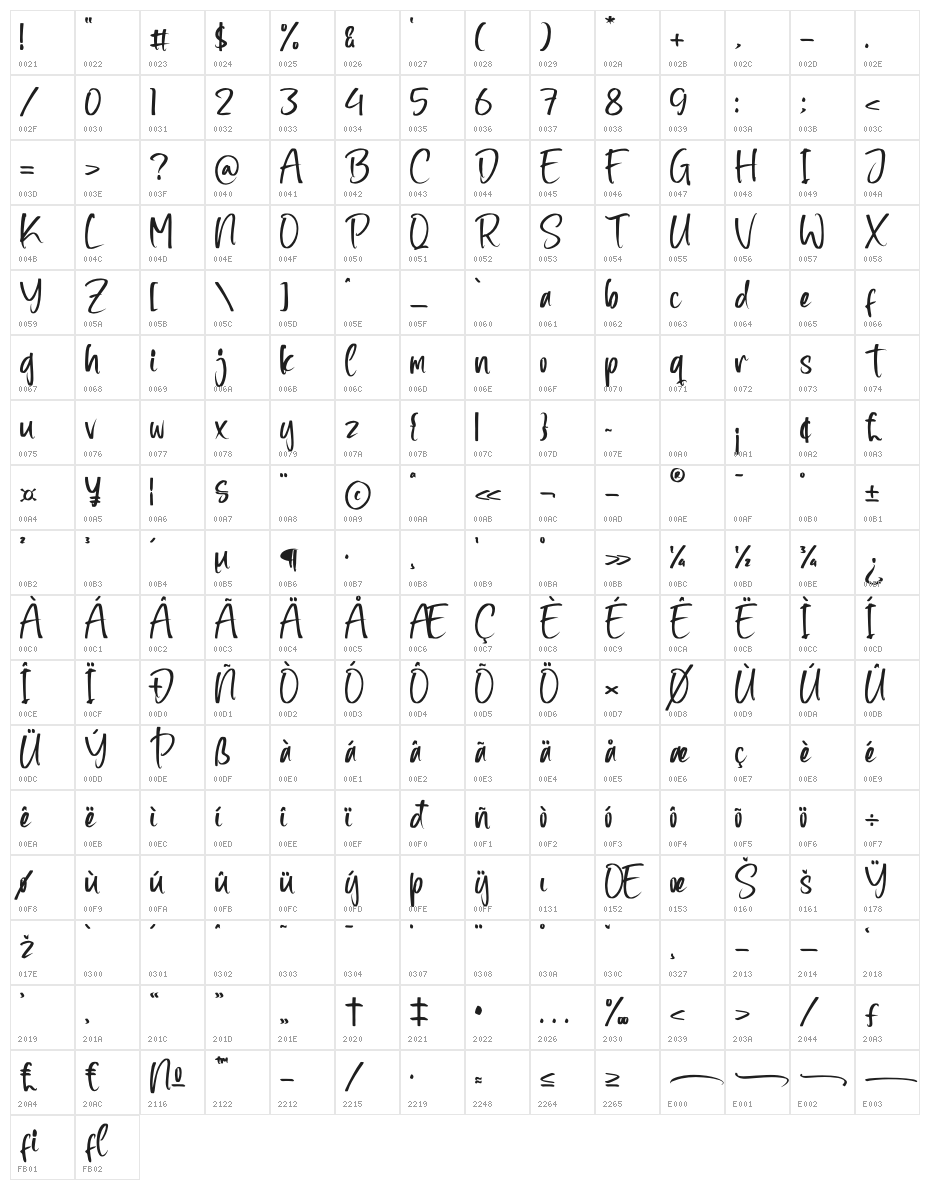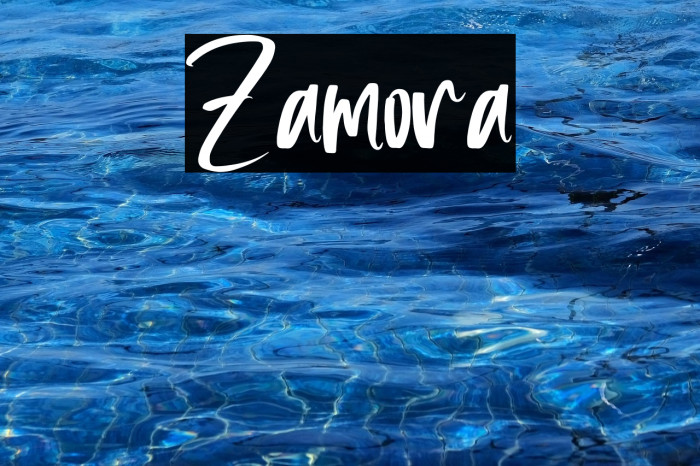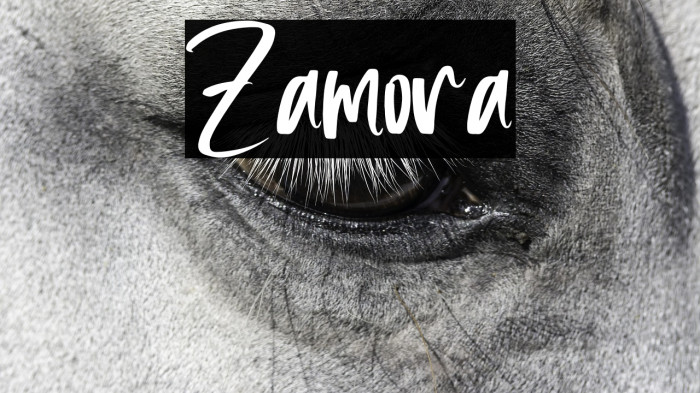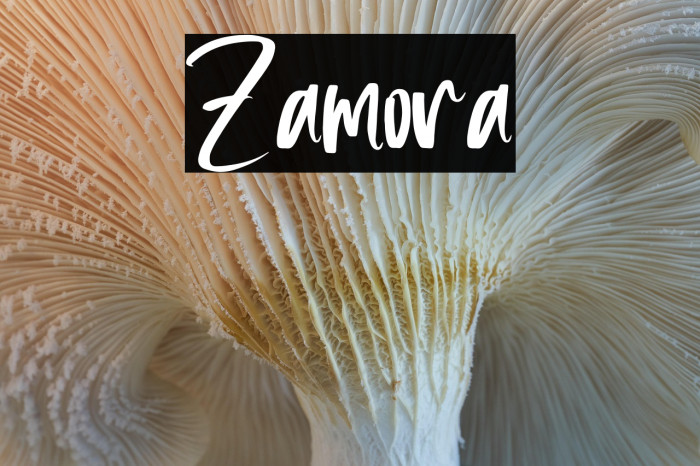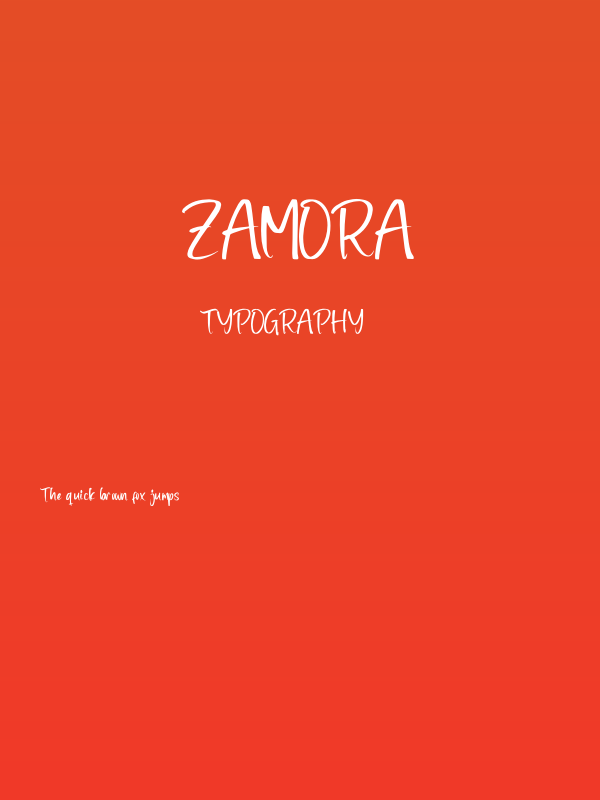
Zamora Font
Zamora Description
This font features a dynamic and energetic handwritten style, characterized by its fluid and expressive strokes. The uppercase letters are bold and slightly slanted, giving a sense of movement and spontaneity. The lowercase letters maintain a consistent flow, with some letters extending below the baseline, adding to its casual and informal appearance. The numerals are well-integrated, matching the overall style with their playful curves. Special characters are creatively designed, enhancing the font's versatility. This font is ideal for projects that require a personal touch or a lively, informal vibe.
| Proposed Projects | Ideal for greeting cards, invitations, posters, and branding that seeks a personal and lively touch. |